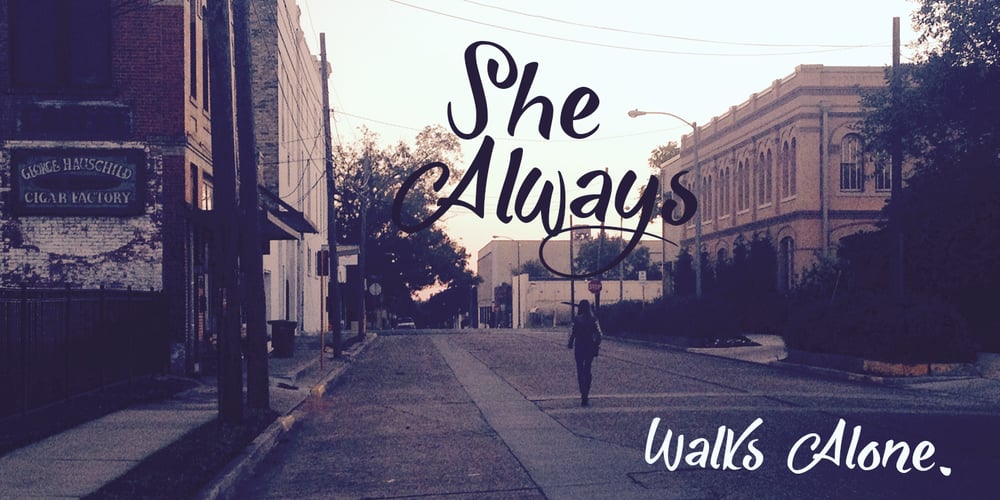
She Always Walk Alone Font Family was designed by Roland Hüse and published by Roland Hüse Design. She Always Walk Alone contains 1 styles and family package options. A hand drawn, quirky brush marker font. Contains Western and Central European accents.